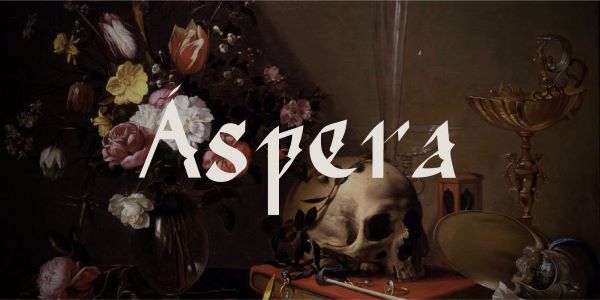
Aspera Font
Aspera by Candelaria Macedo, Aurelia Lila Olmedo, and Estrella Urschel is a free display font born from a rich literary source — its dark, mysterious character inspired by Mariana Enriquez, the celebrated Argentine horror writer whose work pulses with unsettling atmospheres and deeply human dread. The name Aspera means “rough” in Spanish, and the letterforms reflect that — jagged, expressive, and charged with the energy of wood crackling in a fire. Each glyph was built with careful attention to its terminals and details, giving the typeface a texture that feels genuinely handcrafted. Available free for personal use.